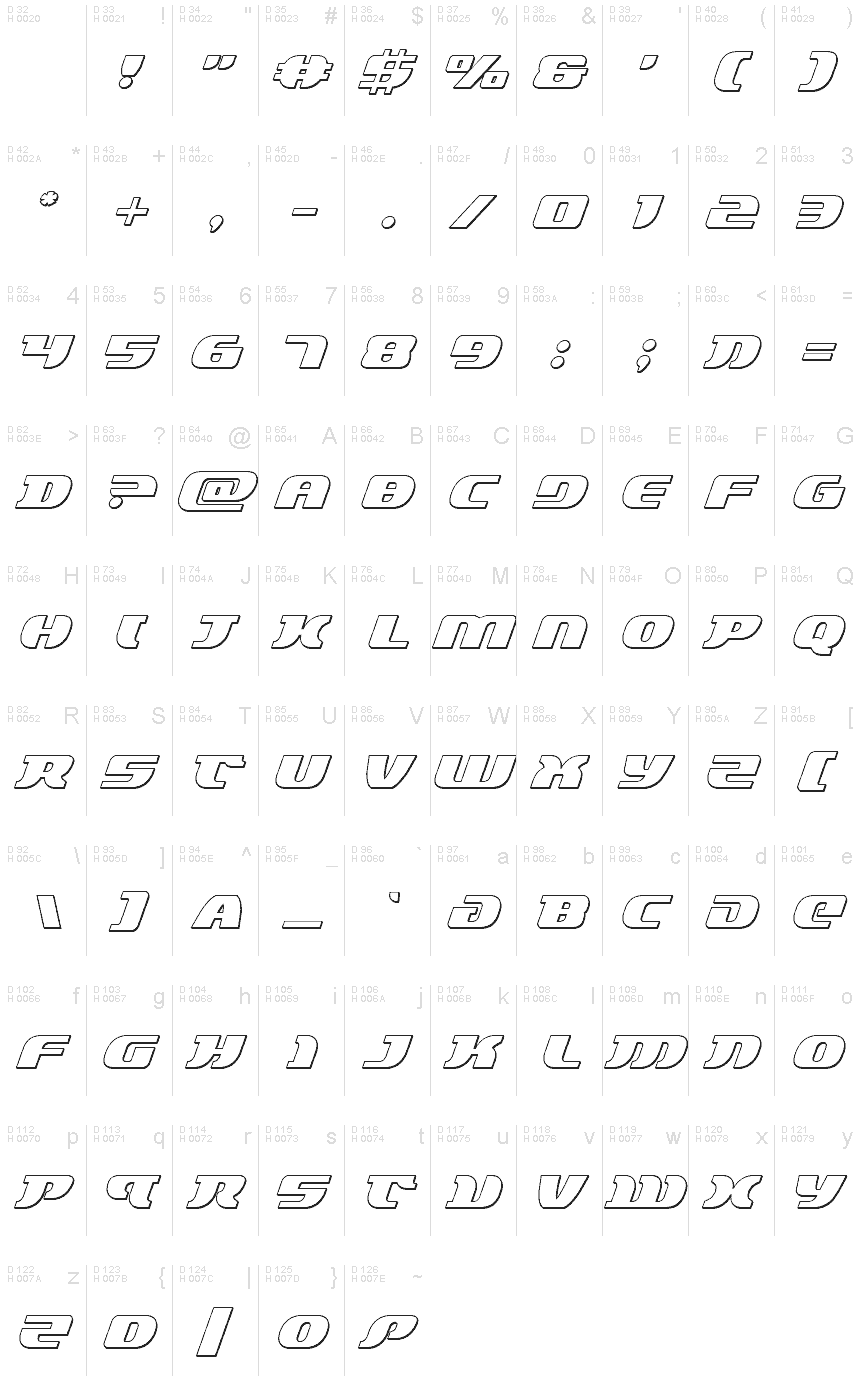
Lord of the Sith 3D Italic
Lord of the Sith 3D Italic, designed by Daniel Zadorozny of Iconian Fonts, is a captivating display font that exudes a futuristic, bold, and expanded aesthetic. Its dimensional 3D-inspired strokes and italic slant create a striking visual impact, evoking a sense of power and modern sophistication. This font's distinct style and attention to detail make it a standout choice for a variety of design applications.
This font's versatility shines through its ability to add a touch of drama and visual interest to headlines, logos, and display text. Its bold, expanded letterforms lend themselves well to branding, packaging, and editorial design, ensuring a strong and memorable visual presence. Additionally, the 3D effect and italic flair make Lord of the Sith 3D Italic an excellent selection for sci-fi, gaming, and fantasy-inspired projects, where it can elevate the sense of immersion and cinematic grandeur.